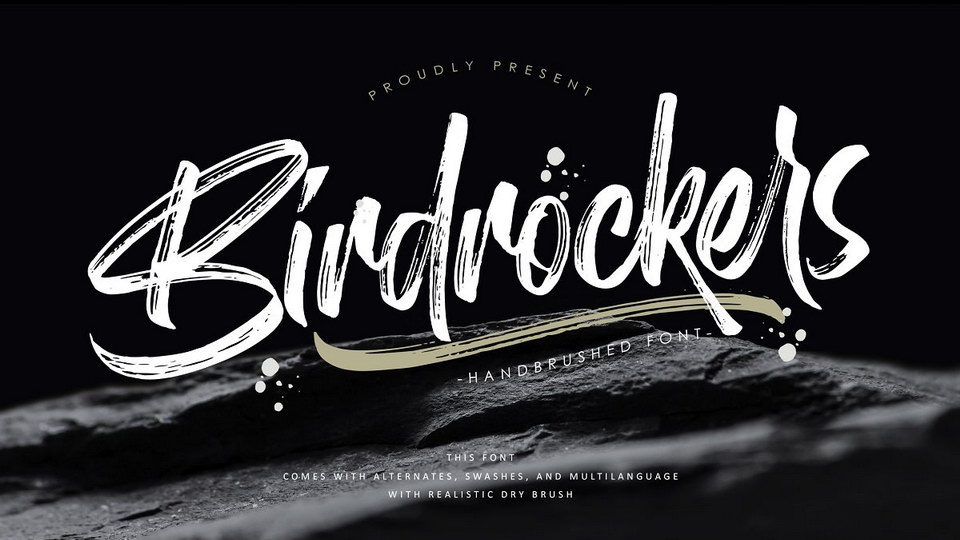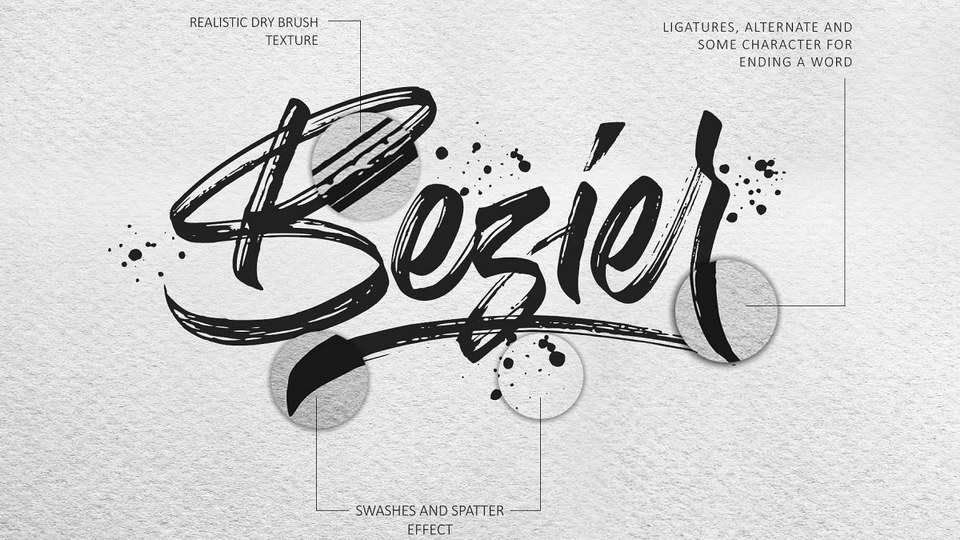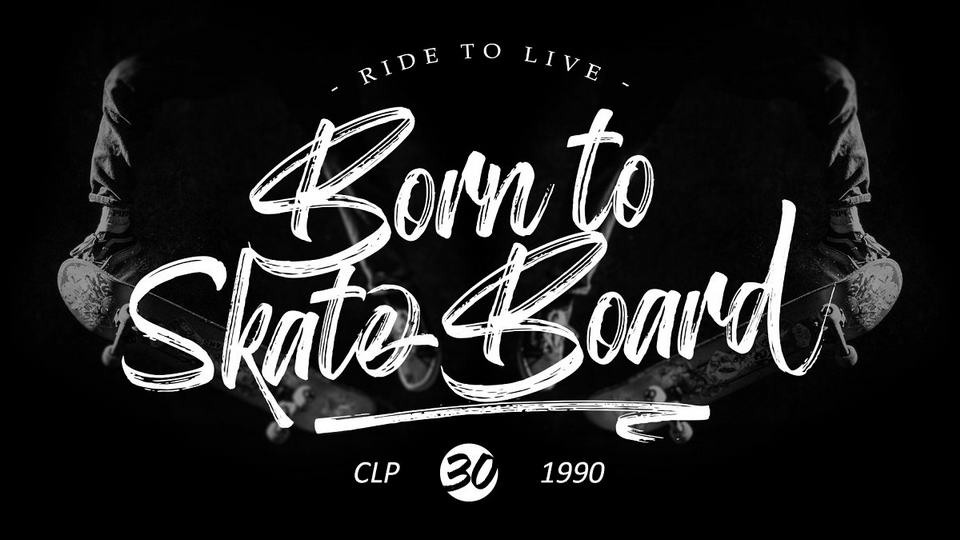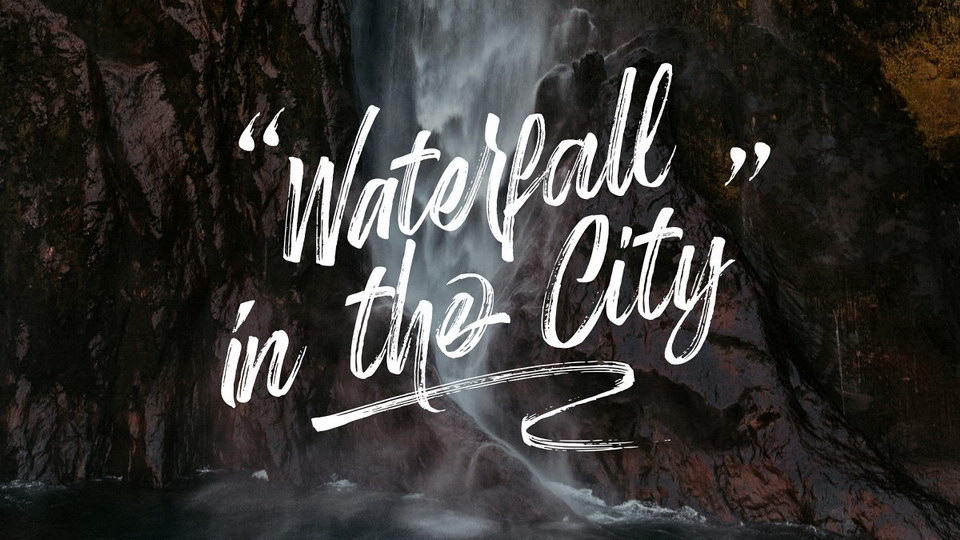
Birdrockers is a realistic hand brushed font made with natural authentic brush, and also provided some alternate, ligatures and extra swashes. Brand new stylish textured fonts to make logotype in hand lettering style. It will be great for logotypes, posters, digital lettering arts, branding, merchandise and social media posts.
Birdrockers font contains uppercase, lowercase, number, symbol, punctuation also supports multilingual and already PUA encoded.